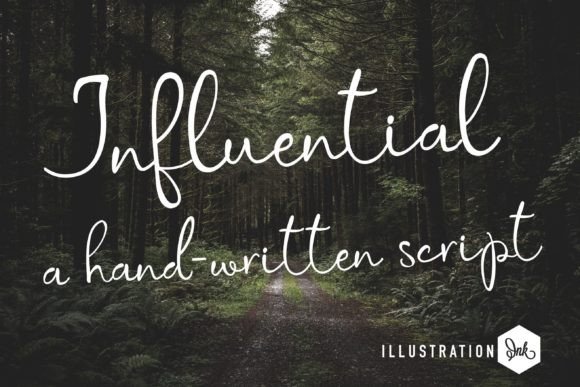
Feast your eyes on Influential Script - a font so captivating, it'll transport you to an era of timeless elegance and charm. Swirl your words in a captivating dance with this enchanting script font. Let your creativity flow as you pen down your thoughts, stories, or quotes with Influential Script. Its captivating curves and flourishes will make your words come alive.
Step into a world of design possibilities with Influential Script. Whether you're creating designs for your website, crafting unique SVG masterpieces, or designing home décor with a touch of sophistication, this font is your perfect companion. Let your brand's message shine with a touch of elegance and charm when you use Influential Script for your logos and branding projects.
Unleash your creativity and create invitations that capture hearts with Influential Script. Its flowing lines and whimsical style will add a touch of enchantment to your special events. Let your blog posts and social media captions dance off the screen with a touch of handwritten beauty using Influential Script.
With Influential Script, you'll discover a font that instantly adds a touch of warmth and uniqueness to your projects. Its natural characteristics, inspired by the beauty of handwriting, will make your designs stand out from the crowd. Whether you're a seasoned designer or just starting out, Influential Script is easy to use and will bring a touch of magic to your creative projects.
Make a statement with Influential Script, a font that embodies elegance, charm, and timeless beauty. Let your words and designs dance across the page with a touch of whimsical delight that will leave a lasting impression on your audience. Embrace the artistry of Influential Script and elevate your creative projects to new heights. Your journey to design excellence starts here.